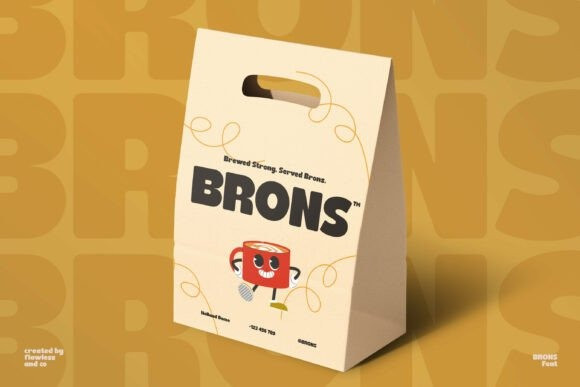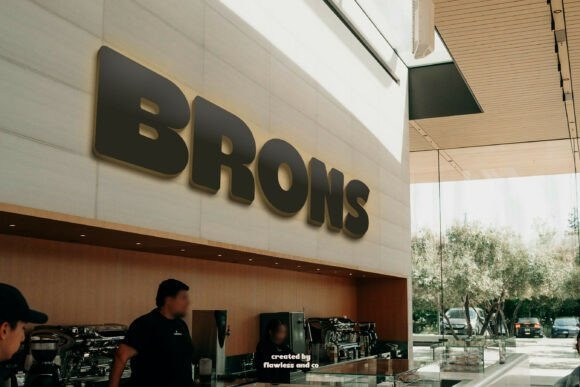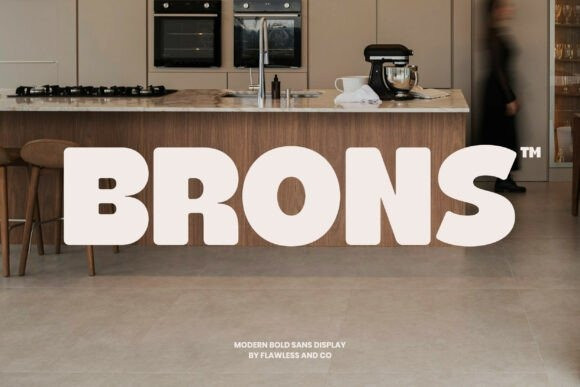
BRONS FONT
Brons Font is a powerful, bold sans display font designed to command attention and elevate visual impact. With its chunky, confident shapes and clean modern structure, Brons delivers a strong personality that stands out across branding and headline applications.